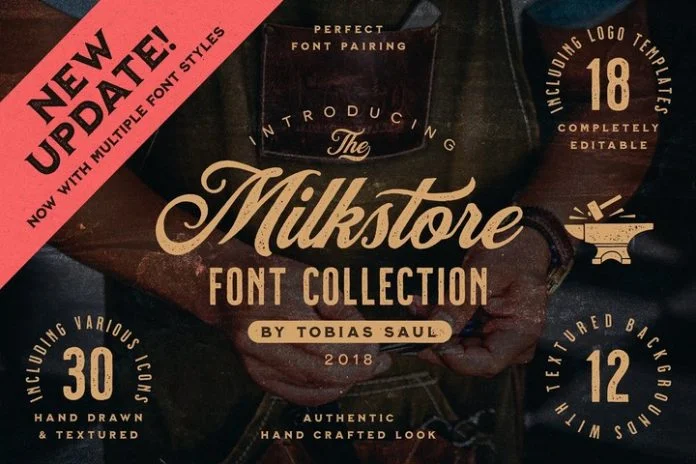
Milkstore Font
Milkstore Font is perfect for dairy product packaging, organic farm branding, local creamery signage, wholesome food labels, family bakery logos, fresh milk advertising, artisanal cheese packaging, farm-to-table restaurant menus, natural dairy marketing, and nostalgic neighborhood store signs.
Milkstore Font is exciting because it authentically captures the wholesome comfort and nostalgic charm of traditional neighborhood dairies through clean, friendly letterforms that evoke freshness, purity, and family values with honest appeal. This warmly designed typeface combines vintage dairy aesthetics with contemporary functionality, making it perfect for food brands that want to communicate natural goodness, family tradition, and wholesome quality.
The Milkstore Font family includes clean weights with dairy-inspired character styling, featuring wholesome design elements and family-friendly variations. The font showcases farm-fresh design details, neighborhood-authentic proportions, and traditional dairy characteristics that create a comprehensive typographic system for food and family-oriented brand applications.
The wholesome appeal of Milkstore Font makes it an essential tool for dairy producers, organic food companies, and family businesses that need typography capable of communicating natural purity and traditional family values. The font's honest character helps establish immediate trust and reliability that resonates with consumers seeking authentic, wholesome food experiences and traditional quality standards.
Local dairies, organic food stores, and family restaurants consistently choose Milkstore Font for its ability to convey wholesome authenticity and family tradition through typography. The font excels in applications where establishing food quality credibility and family appeal are essential to brand positioning, making it particularly effective for dairy products, organic foods, and family-focused food services targeting health-conscious families.
This font's comprehensive character set includes wholesome letterforms, farm-fresh numerals, clean punctuation marks, and family symbols that support authentic dairy typography composition. The consistent wholesome styling maintains the dairy farm theme throughout all characters while ensuring professional readability across all food and family design projects requiring Milkstore Font Free Download functionality.